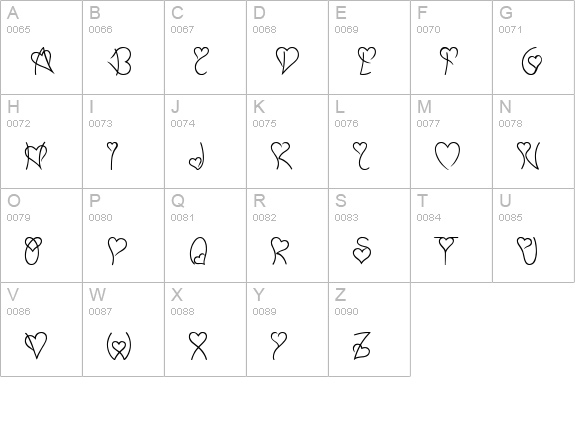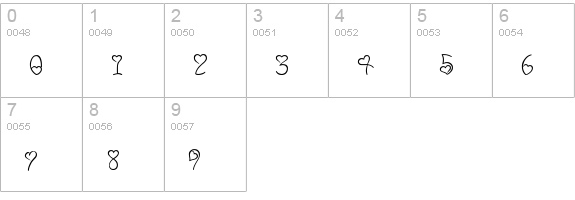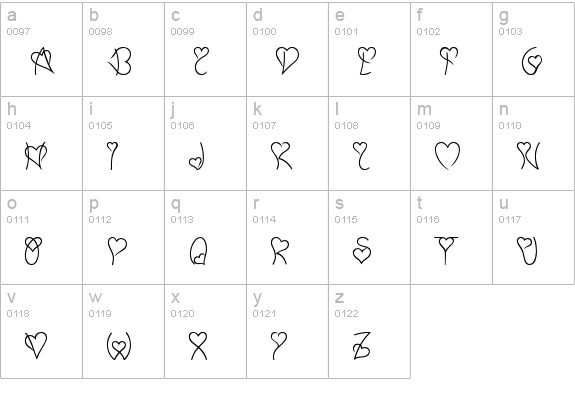
My Lover Font Details
Introducing My Lover font, a captivating and enchanting typeface that is sure to ignite a spark of passion in any design project. With its graceful curves and delicate strokes, this font captures the essence of love and romance in every letter. My Lover font is the perfect choice for expressing heartfelt emotions, whether it's in a wedding invitation, a love letter, or a romantic greeting card. Its elegant and flowing script effortlessly evokes a sense of intimacy and tenderness, making it ideal for any design that seeks to convey affection and warmth. One of the most remarkable features of My Lover font is that it is absolutely free. Yes, you read that right! This stunning typeface is freely available to download at FontsMarket.com. Embrace the power of love without breaking the bank, and add a touch of elegance to your designs with My Lover font. Not only does My Lover font offer an exquisite aesthetic, but it also provides versatility and ease of use. It is compatible with various design software and can be effortlessly integrated into your creative projects. Whether you are a professional graphic designer or a passionate enthusiast, this font will be a valuable addition to your typographic arsenal. So, why wait? Unleash your creativity and let the love flow with My Lover font. Download it for free at FontsMarket.com and begin adding a touch of romance to your designs. Feel the warmth and affection radiate from every letter, as My Lover font brings your words to life in a way that is simply captivating.